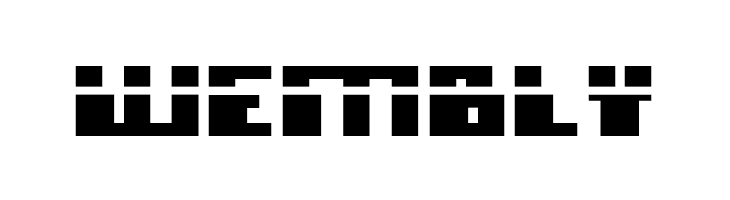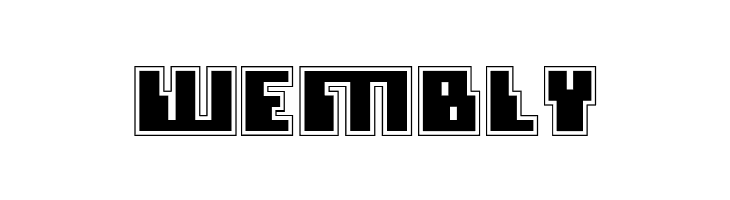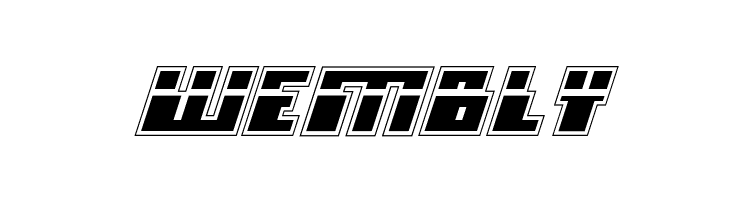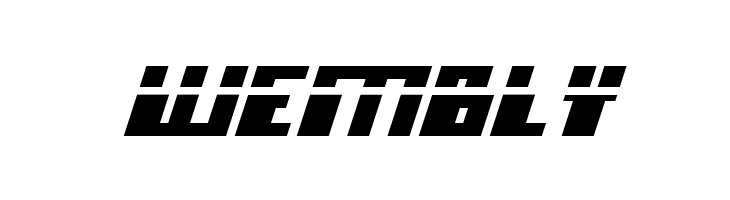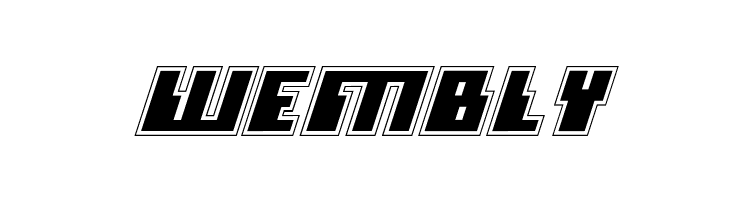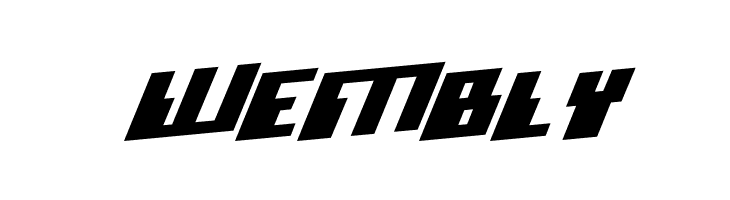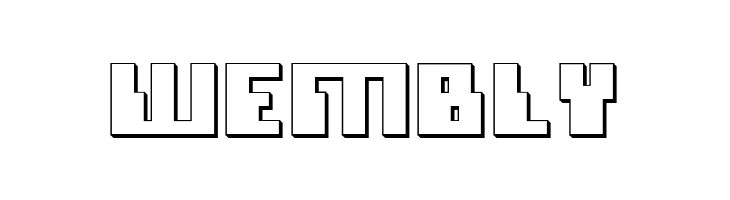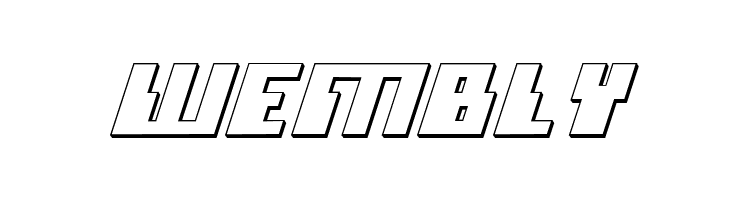
Wumbology-Medium Font
- Font: Wumbology-Medium
A bold, geometric font with a futuristic and digital aesthetic.
A bold, geometric font with a futuristic, digital aesthetic.
A bold, futuristic italic font with sharp angles and a dynamic style.
A bold, futuristic font with angular, italicized characters.
A bold, geometric italic font with a futuristic and dynamic style.
A bold, angular, and futuristic font with a dynamic slant.
A bold, 3D geometric font with a futuristic and structured appearance.
A bold, 3D italic font with a geometric and futuristic style.